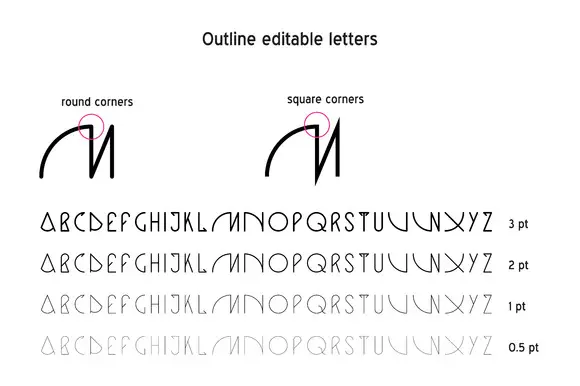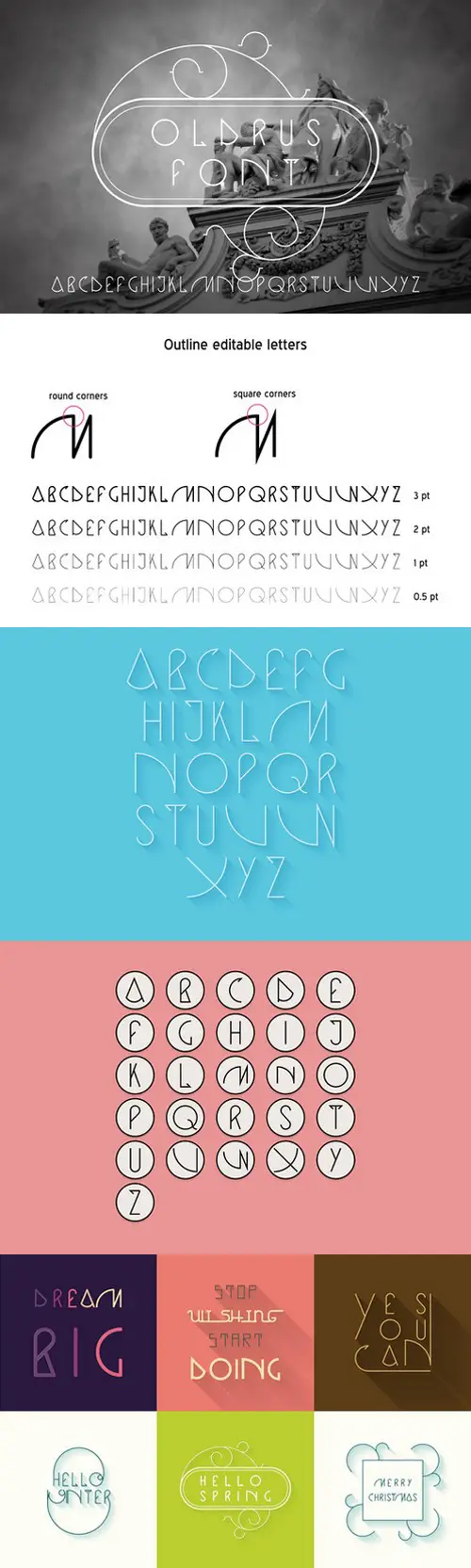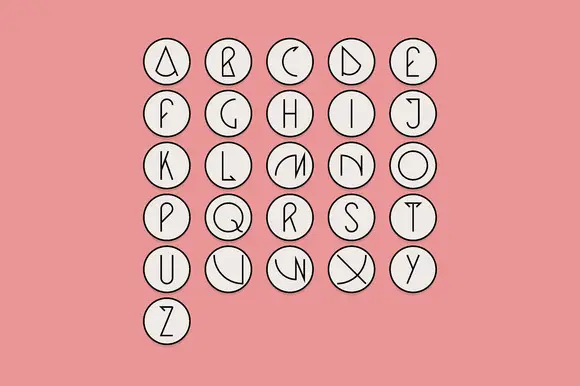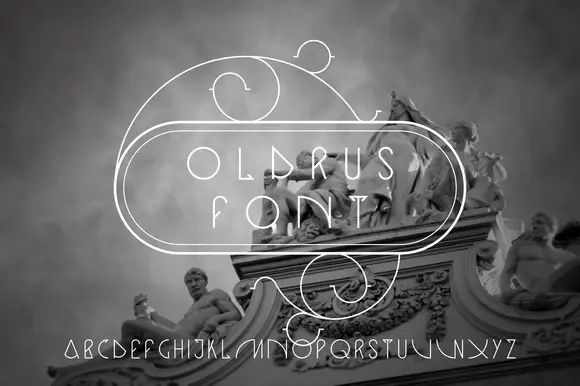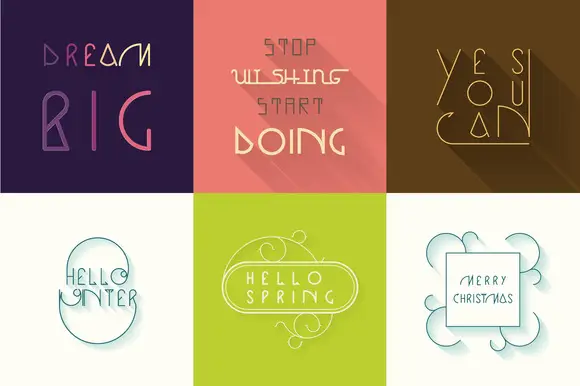
Oldrus Vector Linear Font
The Oldrus Vector Linear Font is a stunning typeface that combines elegance with modernity. Ideal for both digital and print projects, this font features clean lines and a contemporary aesthetic that can elevate your branding, logos, and user interfaces.
• Stylish linear design
• Optimized for readability
• Perfect for branding and logo design
• Great for web and print applications
• Utilize in UI design for a modern look